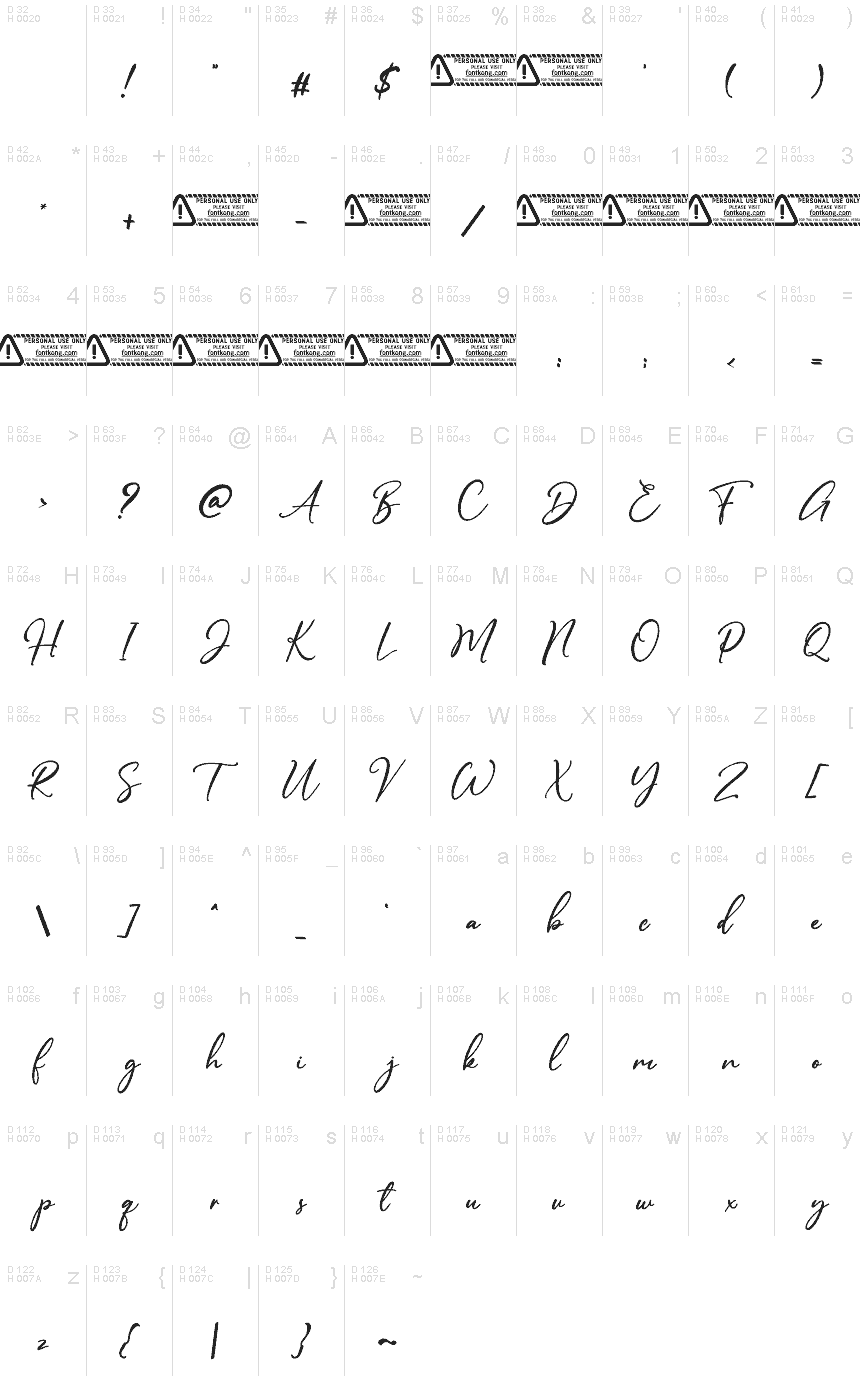
Daviast
Daviast font is a free handwritten font designed by Kong Font. Its elegant and fluid style is both expressive and sophisticated, giving this modern script font an edge without sacrificing on its originality. Daviast balances beautifully between structure and creativity; each letter has its own unique twist while still maintaining the overall harmonious look of the typeface.